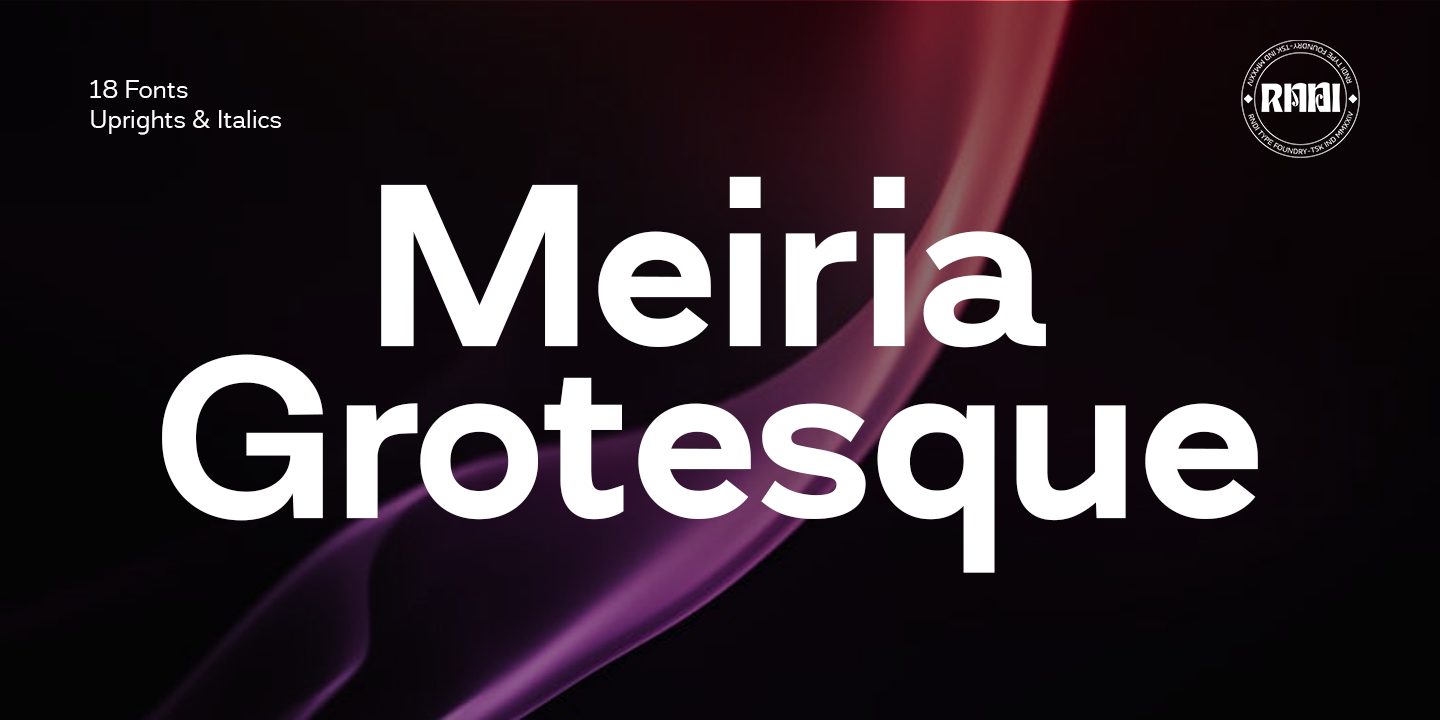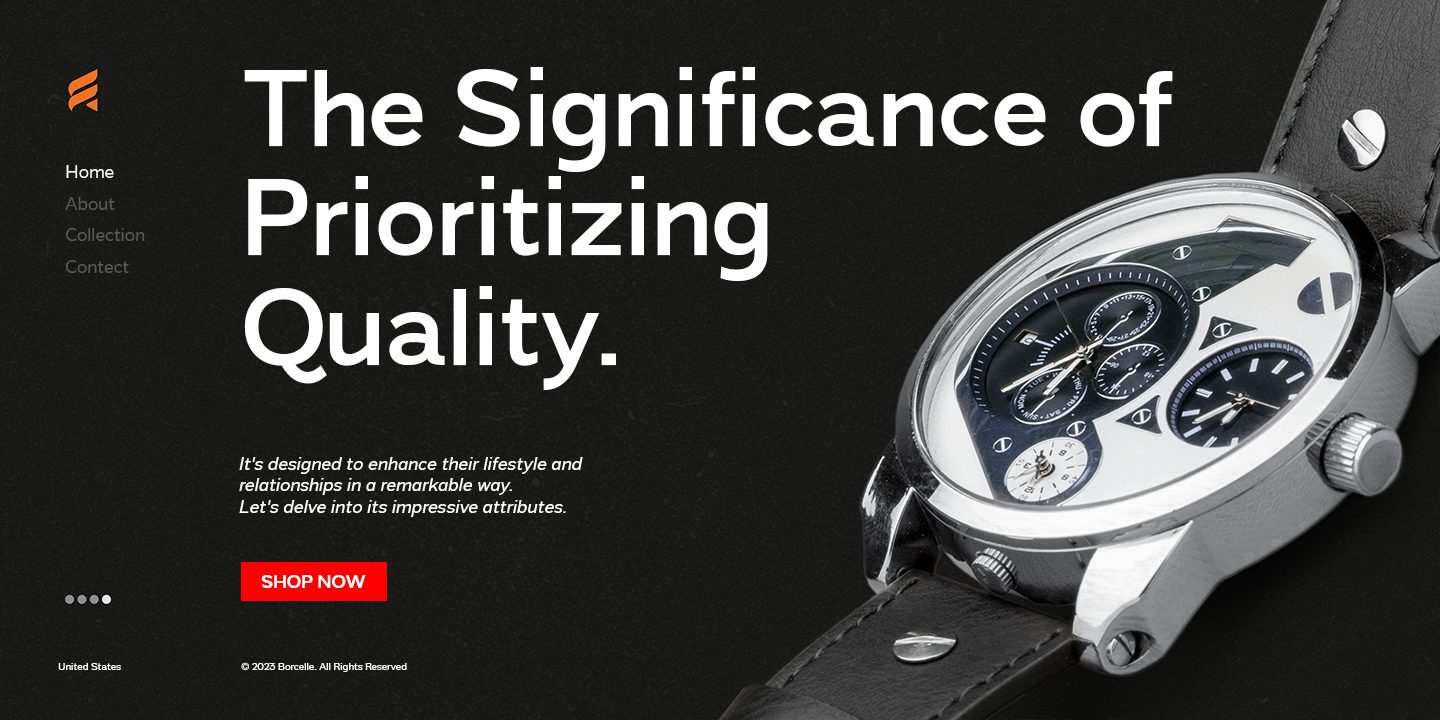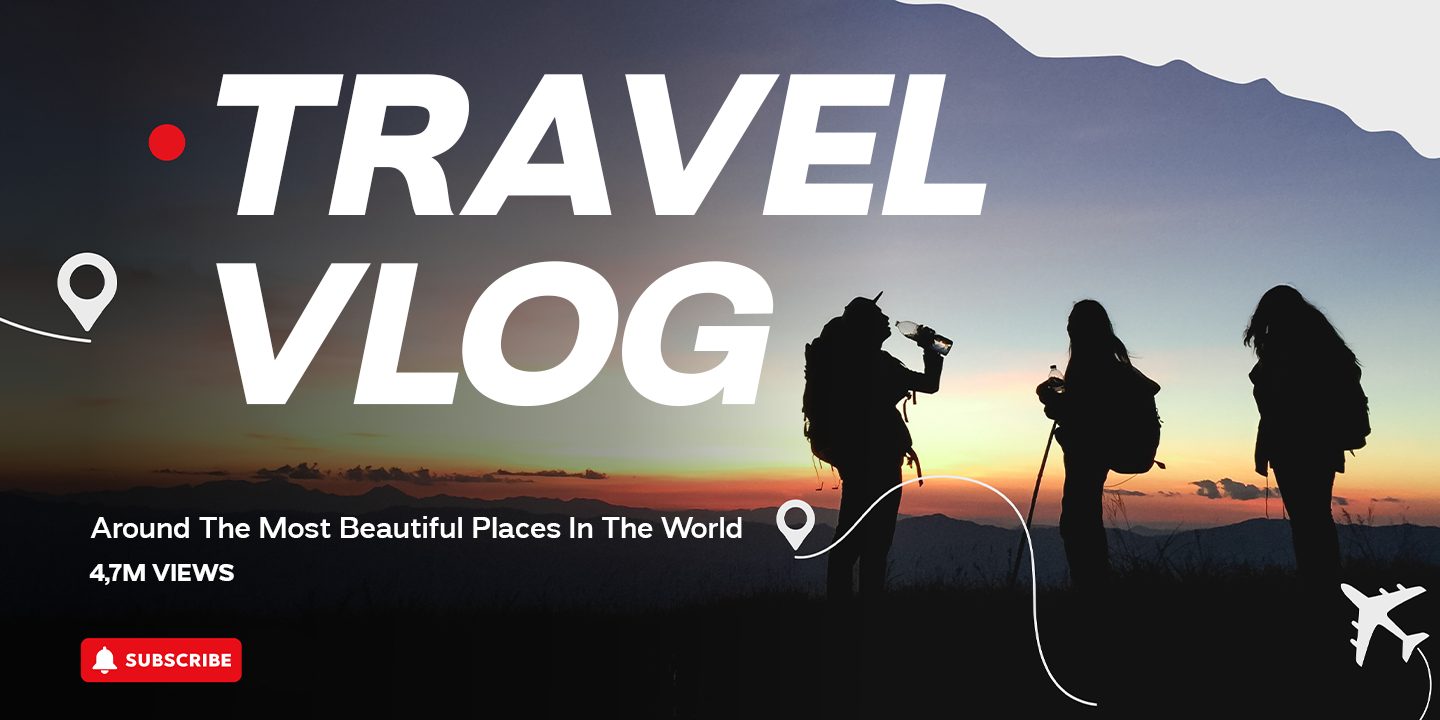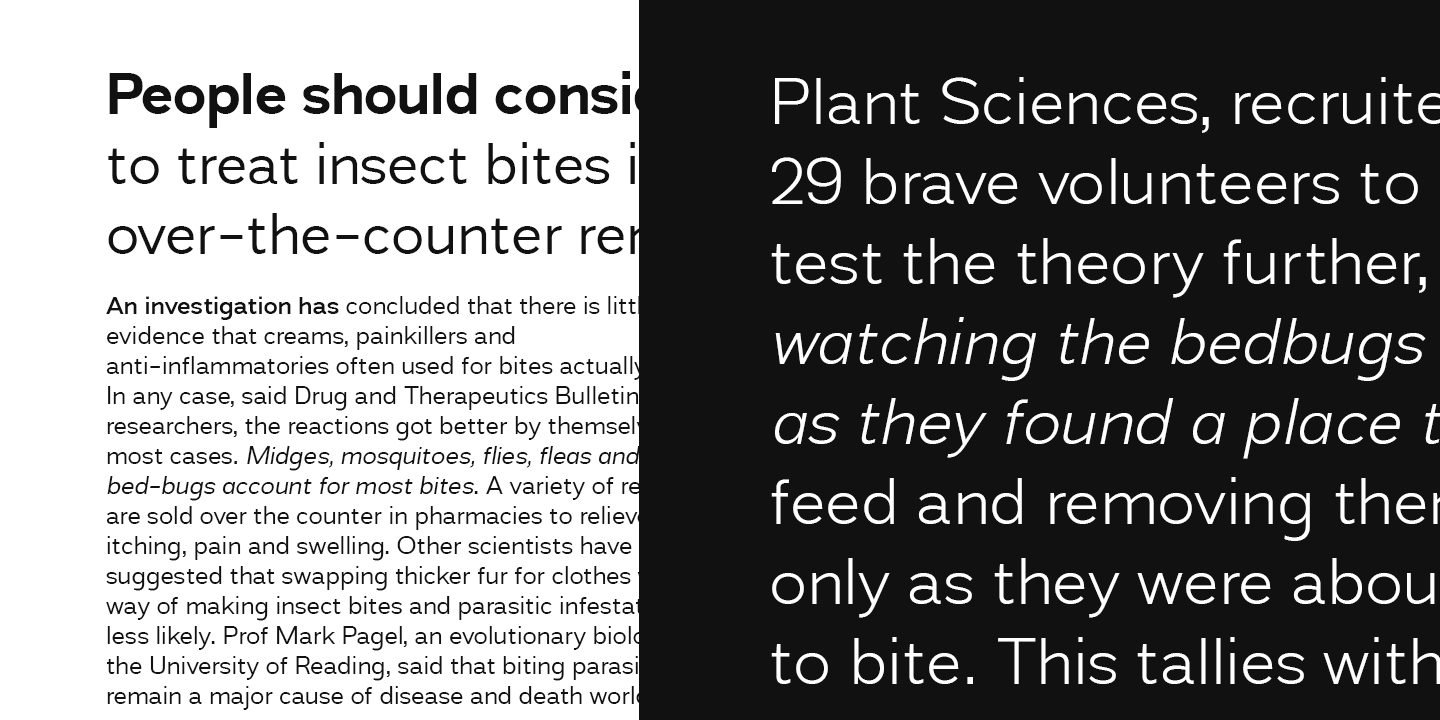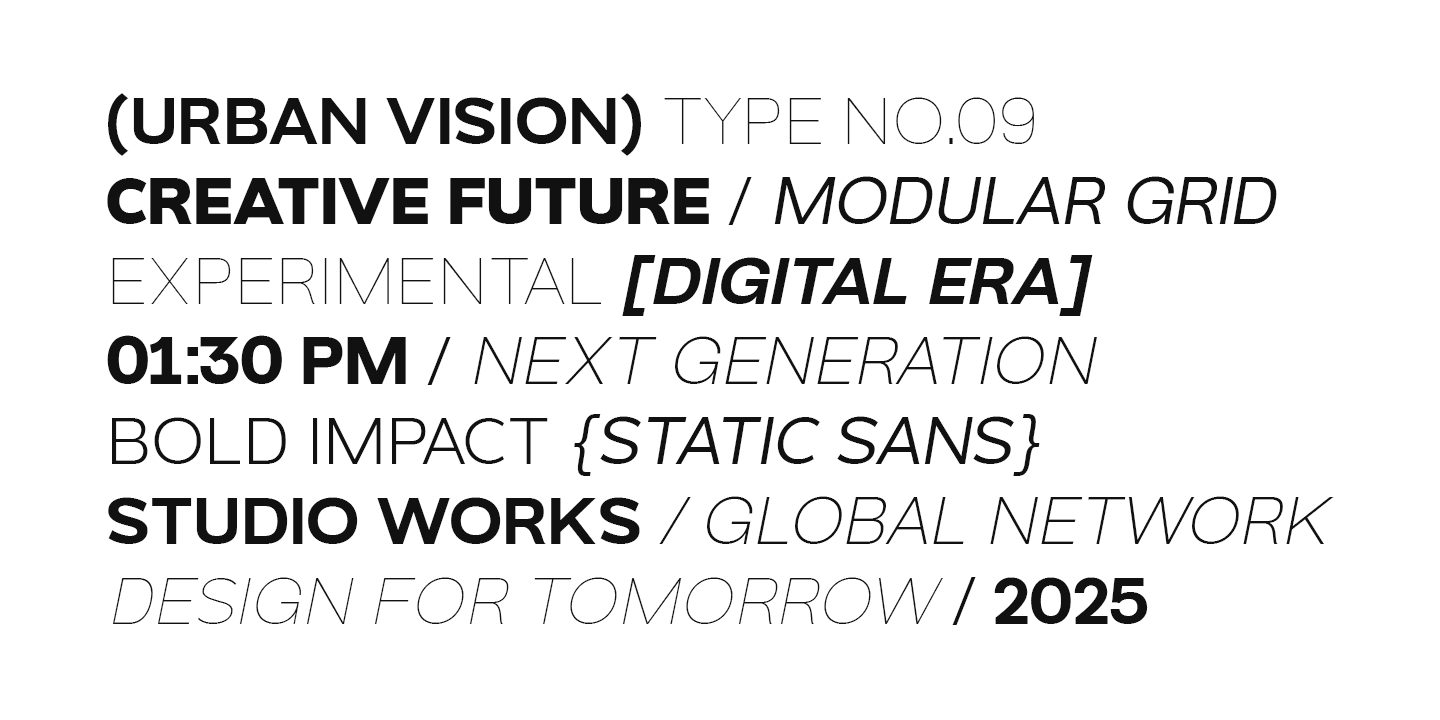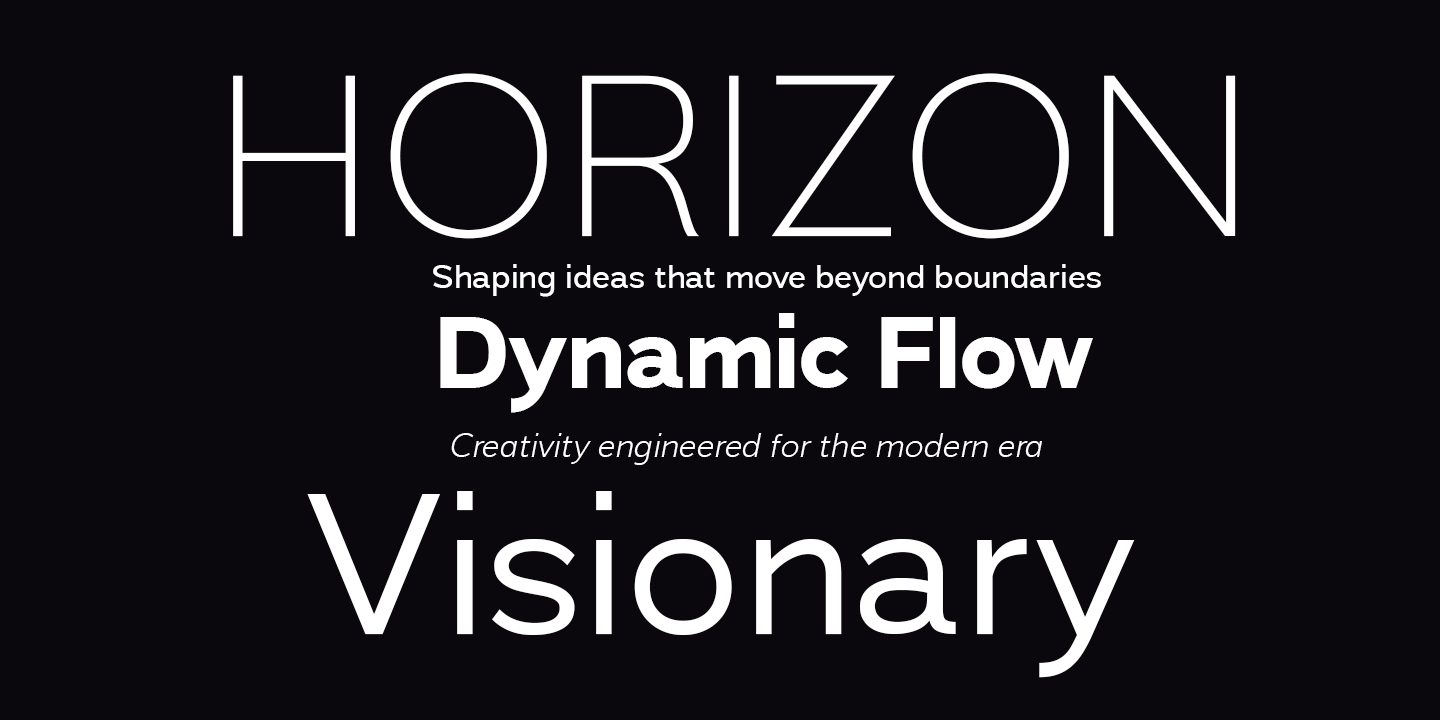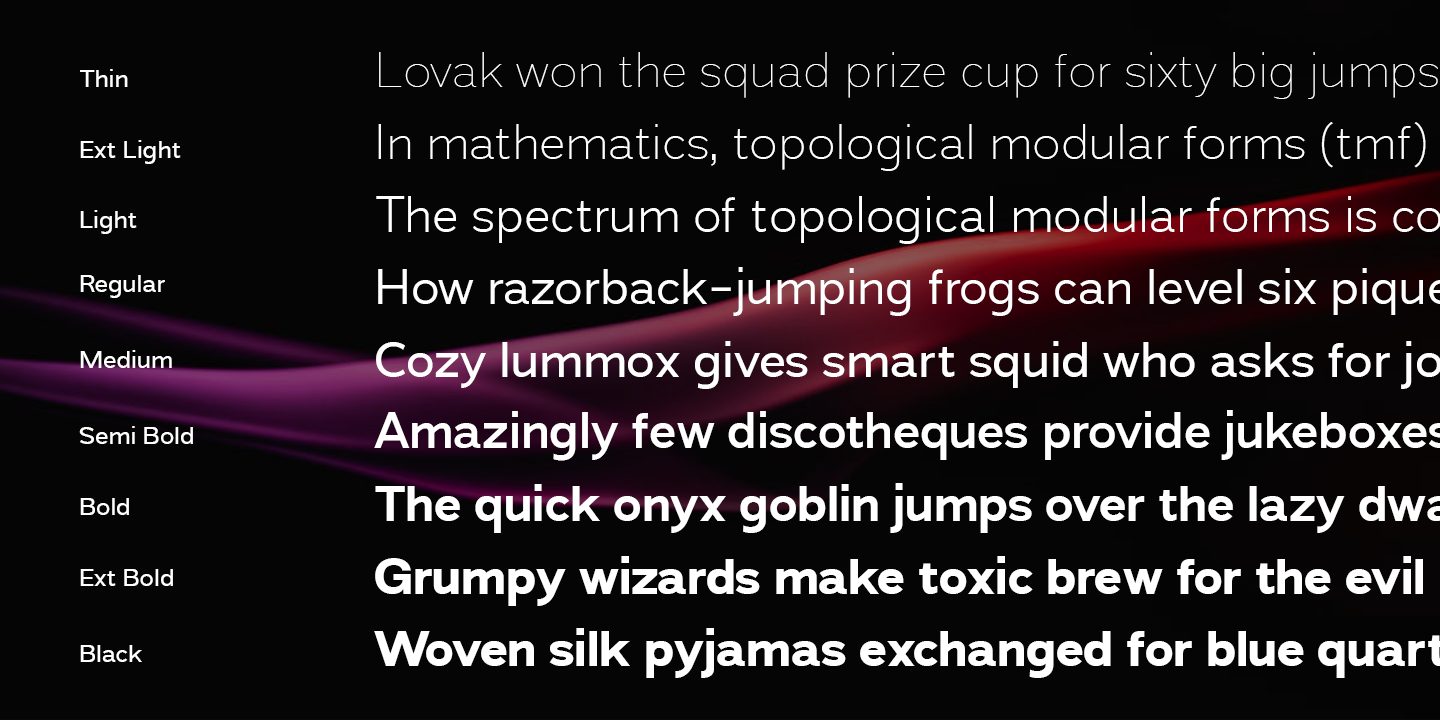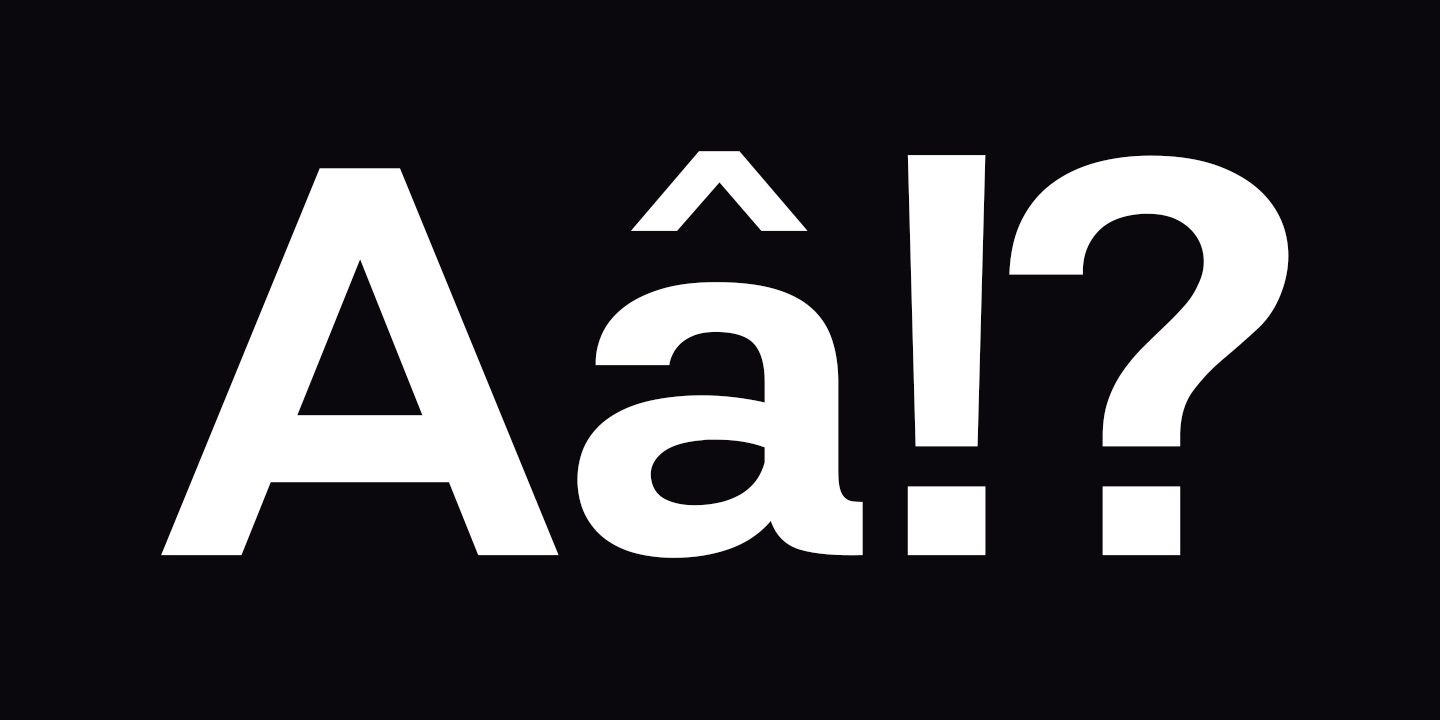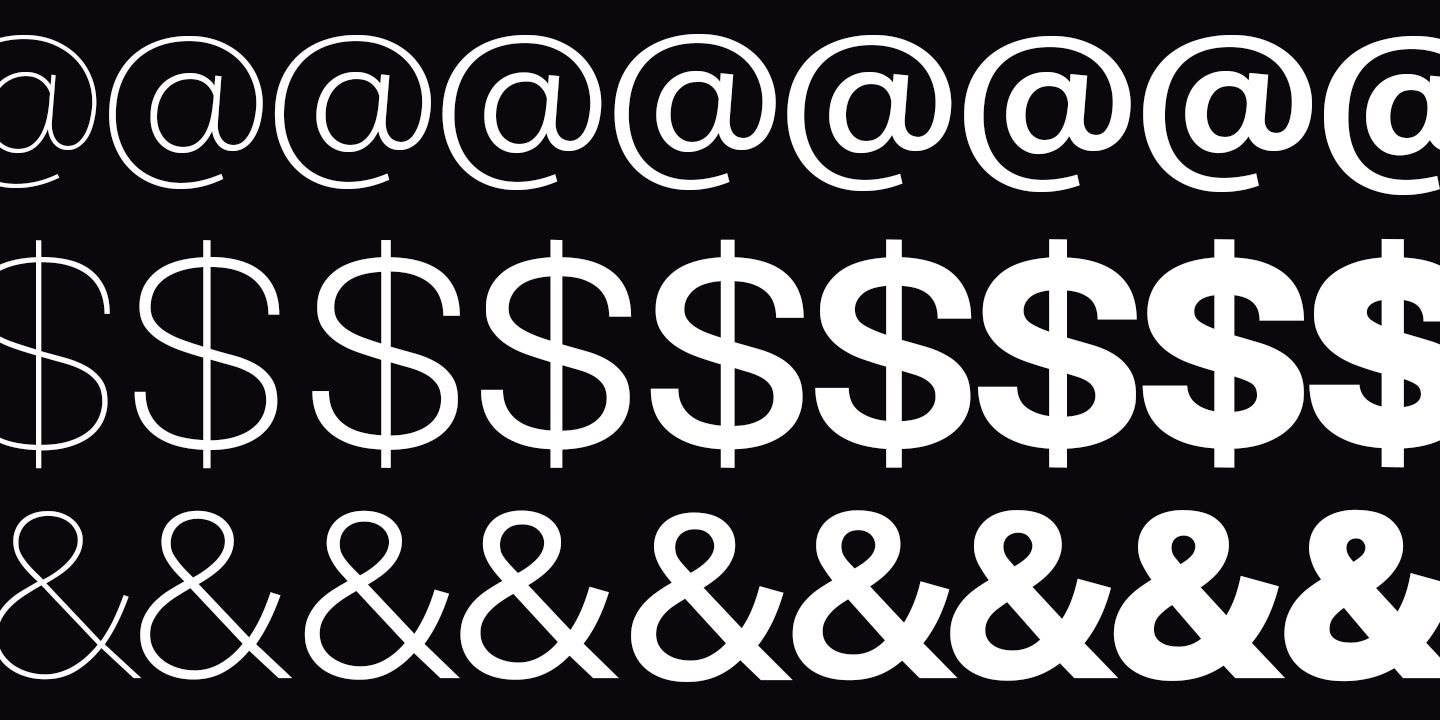
Meiria Grotesque is a modern sans-serif typeface designed with versatility and clarity in mind. With 18 styles including uprights and italics, it offers a complete typographic system for both display and text use.
Featuring clean geometry, balanced proportions, and a full weight range from Thin to Black, Meiria Grotesque adapts seamlessly to branding, editorial design, digital interfaces, and contemporary layouts. The italics add a dynamic, expressive touch while maintaining readability and consistency.
Perfect for headlines, body text, logos, posters, and UI/UX projects, Meiria Grotesque delivers a modern, professional, and timeless look that fits across various creative fields.
Meiria Grotesque – Sans Serif Font